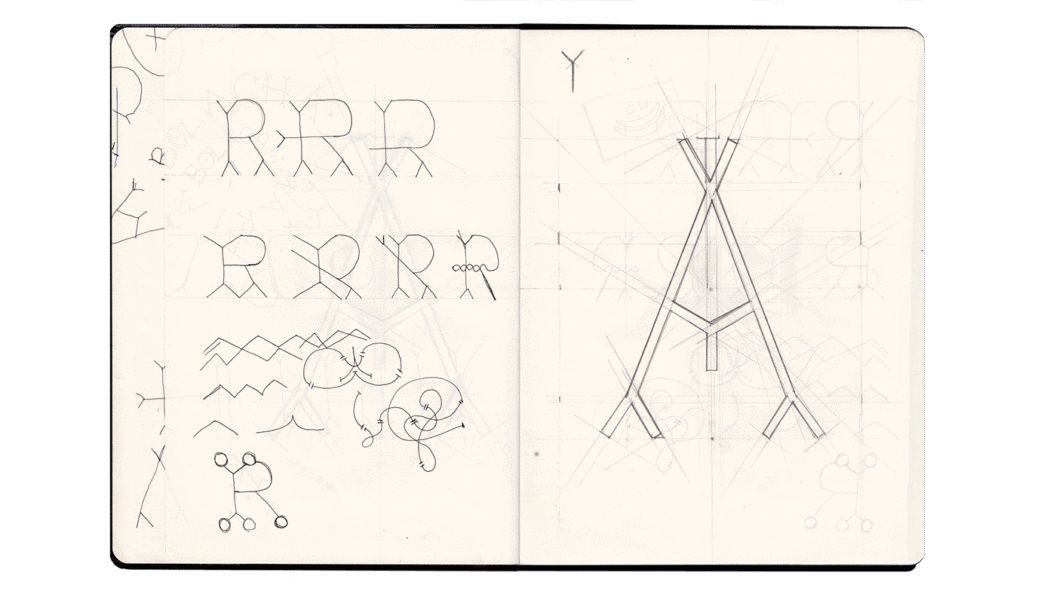
Kraiberg Variable Typeface, Medieval Specimen Showcasing Modern Print and Editorial Flair
Inkjet textures and typewriter impressions meet blackletter angles, Kraiberg’s variable specimen turns a digital font into a tactile medieval artifact.
Kraiberg: Living Blackletter Revival
As an expert branding curator, I endorse Laura Lackner’s Kraiberg project for its brave typographic experiment. It translates medieval codex architecture into a tactile, variable display that feels archival and contemporary. She mixes blackletter-adjacent structures with modern variable axis flexibility to create expressive, usable letterforms. The physical specimen uses everyday printers and typewriter marks to build a raw, neo-archival texture. Ink bleed, offset alignments, and paper grain give the type weight and narrative depth rarely seen in digital specimens. This project is essential reading for designers who prize historical reference, material craft, and system thinking.
Lackner turns a font specimen into a curated object, where production ritual shapes the reading experience. Her structural grids are intentionally disrupted to produce visual friction, and new meaning emerges from the imperfections. Pages balance technical glyph maps with expressive spreads that favor texture and mood over pure legibility. For brand strategists and typographers, Kraiberg offers a model for blending heritage cues with contemporary variable technologies. Read it to see how analog processes can deepen a font’s identity, and to spark new design directions. The images alone teach valuable lessons about scale, contrast, and material presence.